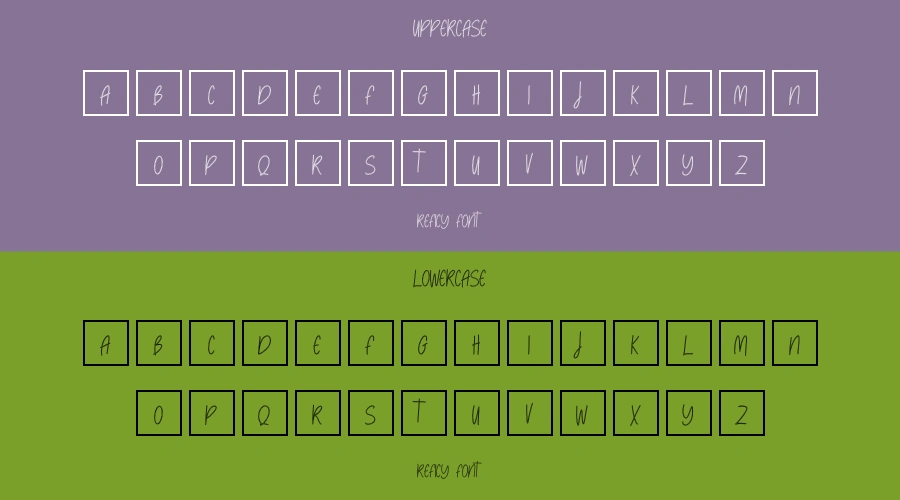
About Reficy Font
Reficy Font represents a sophisticated approach to type design, balancing ink traps with textual warmth. Perfect for poster titles, this font family showcases impressive authenticity and manufacturing quality throughout its character set. Designers appreciate its versatility and reliability.
Designers will appreciate nuanced touches including elegant proportions and contextual alternates, adding sophistication to any project. These features become apparent in page numbers, where special effects matters most. The careful treatment of descender depth and cultural references ensures optimal performance.